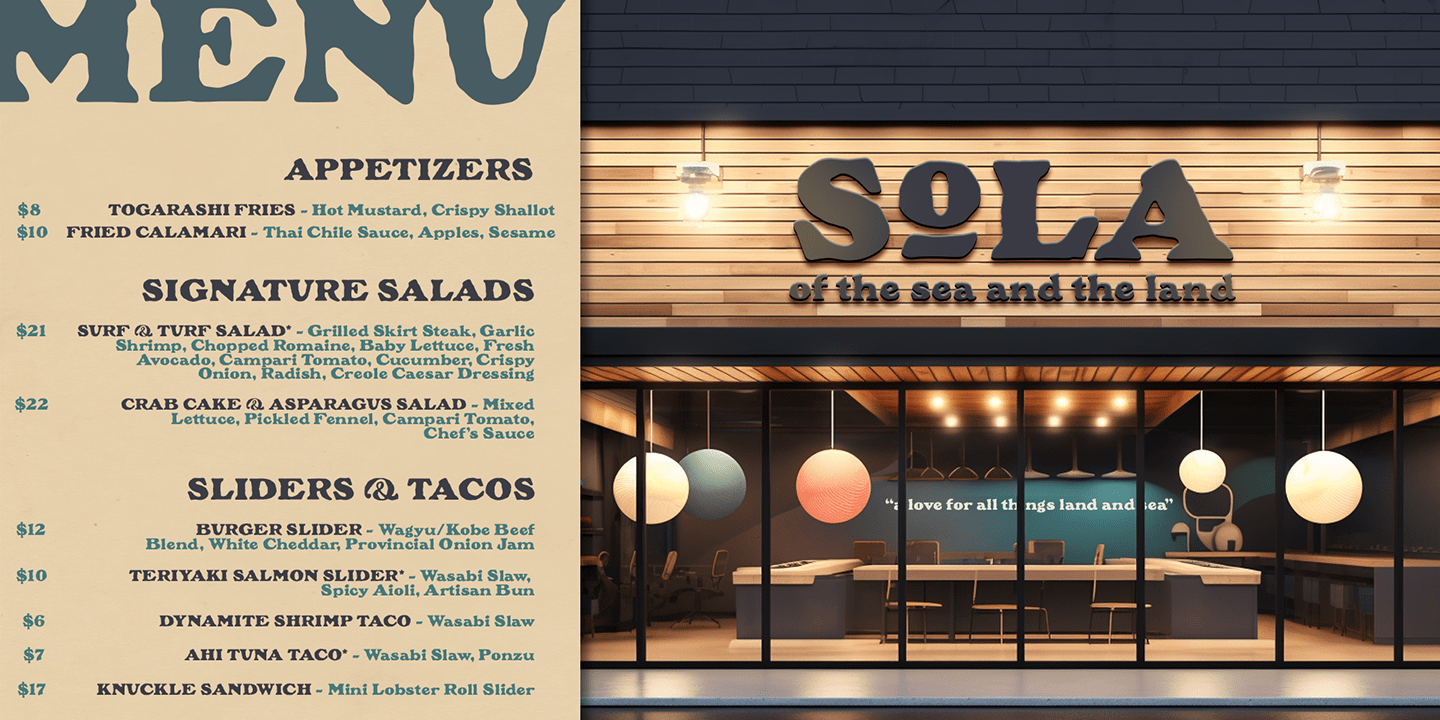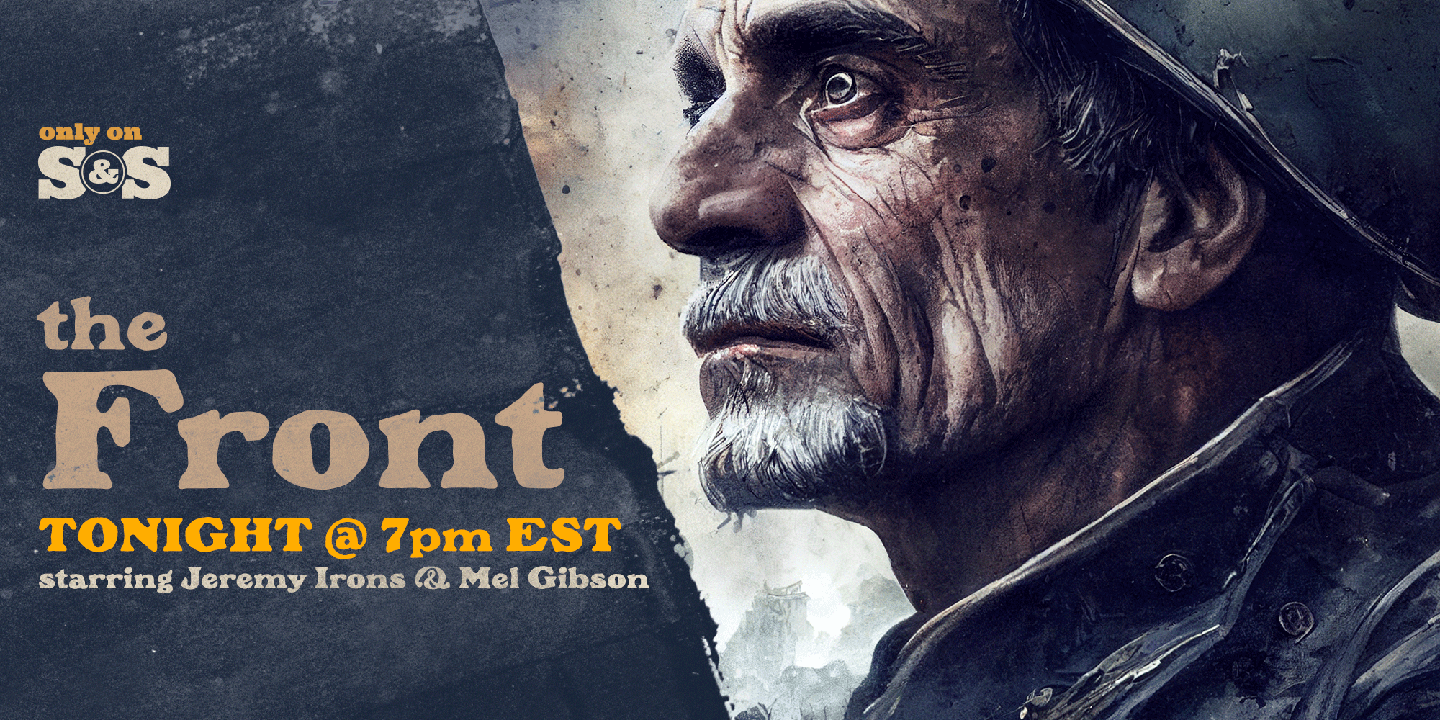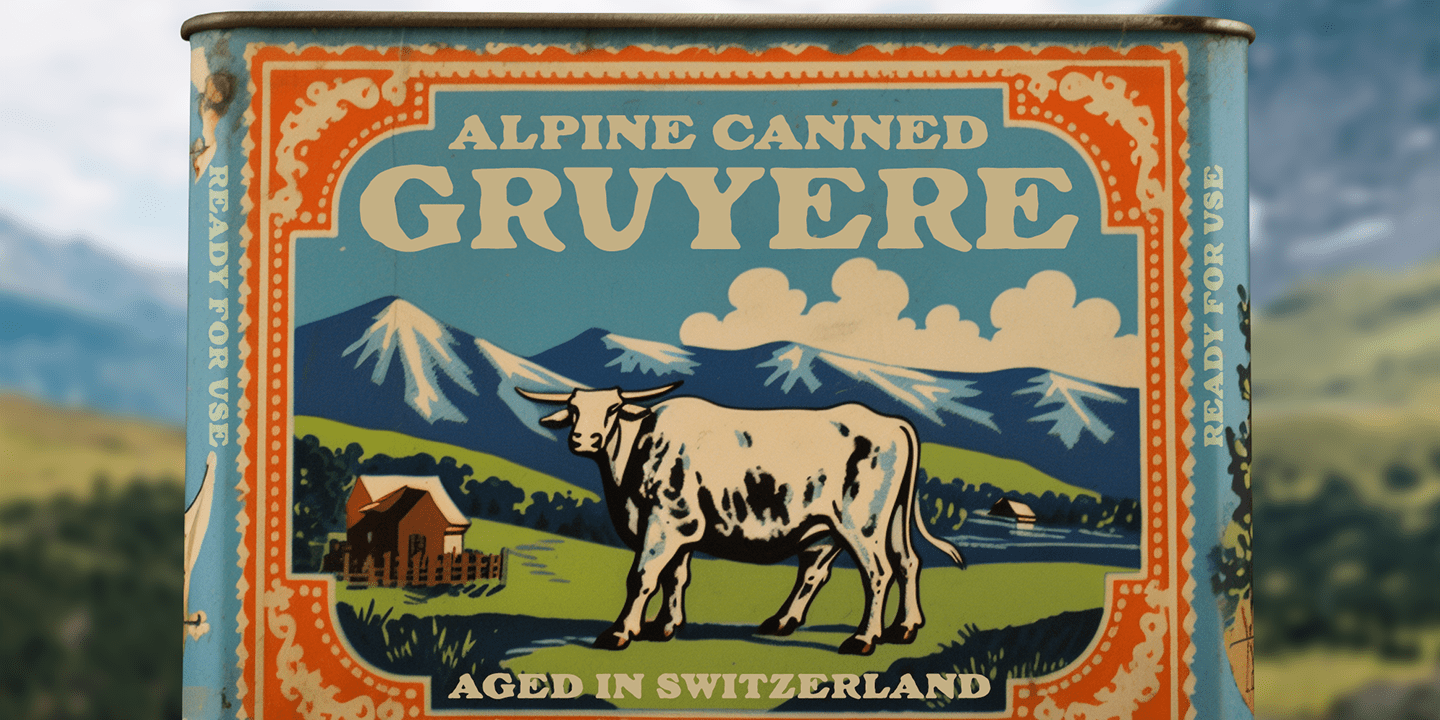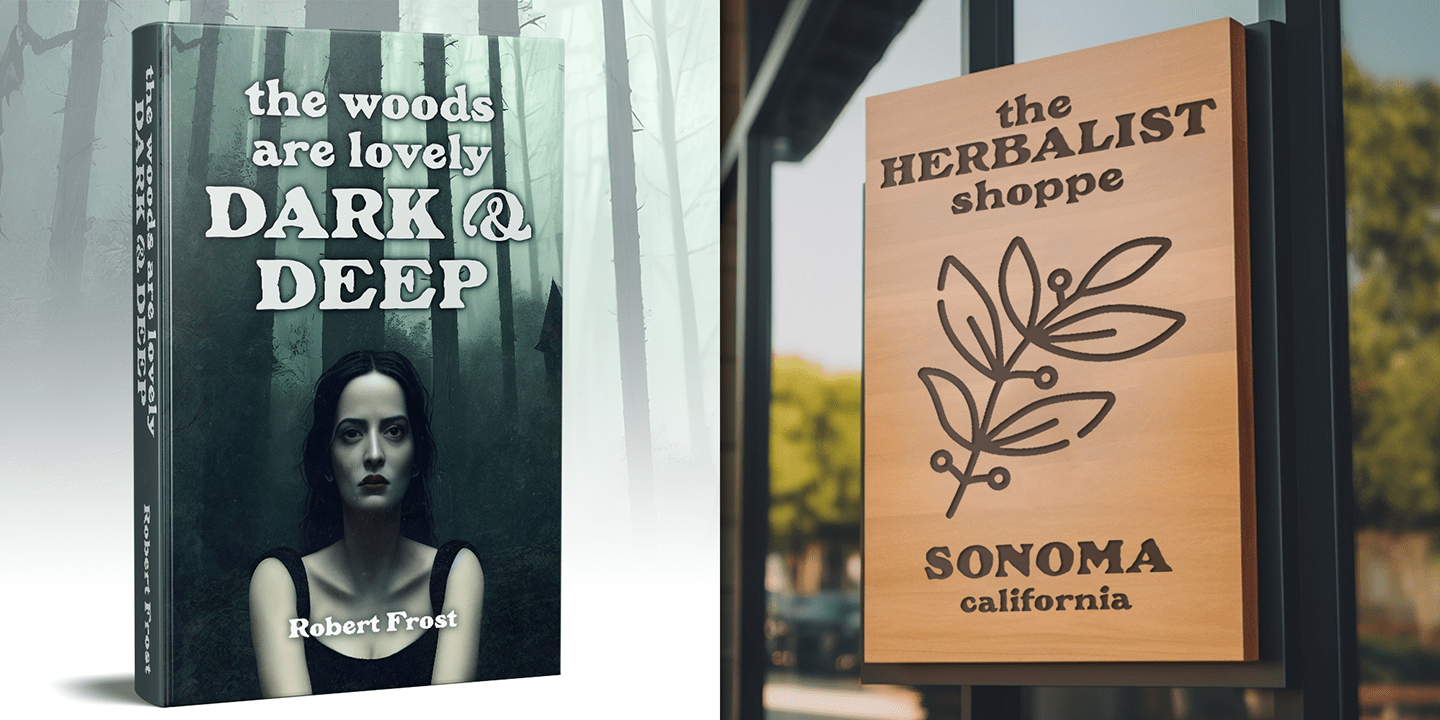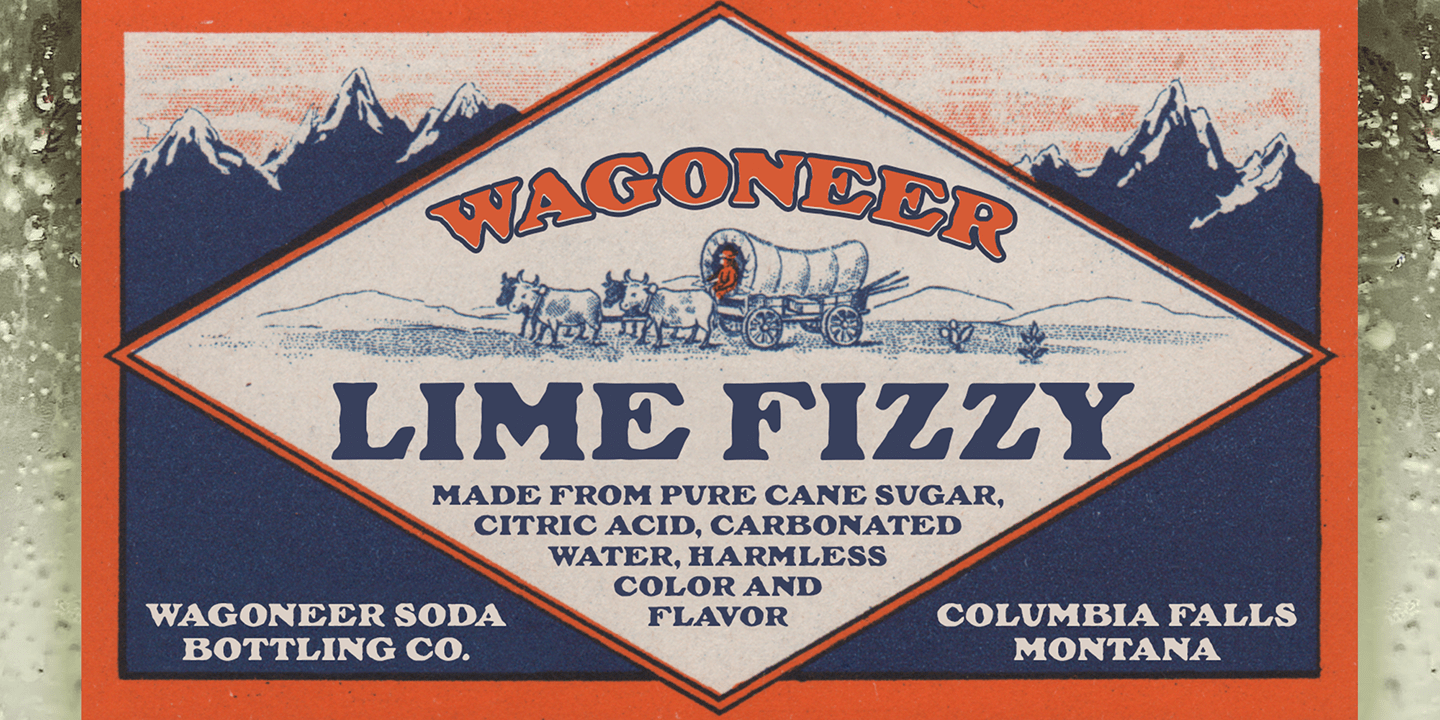
A Historic Revival with a Sophisticated Rustic Edge Pennyroyal began as a Barnhart Brothers & Spindler typeface called Plymouth Bold, first cut in 1900. What began as a straightforward rustic typestyle has been revived to include a more extensive character…